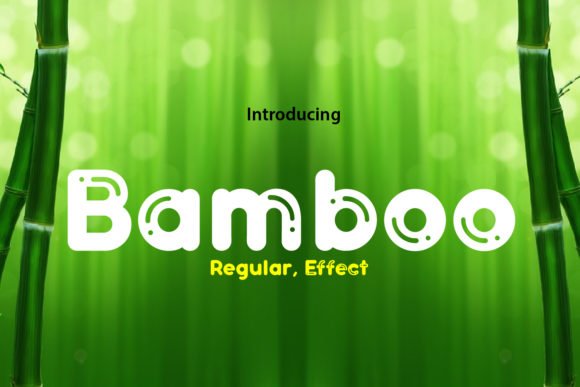
You know that moment when a single element brings your entire design together? For many designers, it’s the perfect font that makes all the difference. And today, we’re excited to introduce you to the Bamboo Font – a bold and simple sans serif font that’s sure to elevate your next project.
Whether you’re working on a logo, brochure, or website, the Bamboo Font is the perfect addition to your creative arsenal. Its clean lines and modern aesthetic make it incredibly versatile, allowing you to match it to a wide range of projects and styles. As a designer, you know how valuable it is to have a reliable font that can be counted on to deliver results.
Bamboo Font Key Features
- Unique Characteristics: Bamboo Font features a unique, hand-drawn design with a natural and earthy feel, making it perfect for creating a warm and inviting atmosphere in designs.
- Character Set: The font includes a comprehensive set of characters, including uppercase and lowercase letters, numbers, punctuation marks, and special characters, making it suitable for various languages and applications.
- Font Weight and Style: Bamboo Font is available in a single weight and style, providing a consistent look and feel across all applications.
Bamboo Font Review
Overall, I think the Bamboo Font is a nice addition to any design project, but it has some limitations that might affect its usability. Here are my thoughts:
- ✨ Unique aesthetic: The Bamboo Font has a distinctive, natural look that can add a touch of warmth to digital designs.
- ✨ Versatile: It can be used for a wide range of projects, from logos and branding to body text and headings.
- ✨ Easy to read: The font is clear and legible, making it suitable for both print and digital applications.
- ⚠️ Limited language support: The Bamboo Font might not be the best choice for projects that require a wide range of languages, as it may not have the necessary characters or glyphs.
- ⚠️ Not ideal for small sizes: The font can become blurry or difficult to read when used at small sizes, which may limit its use in certain design contexts.
Overall, the Bamboo Font is a nice option for designers who want to add a natural, earthy feel to their projects. However, its limitations should be carefully considered before making a final decision.
For optimal results, use the Bamboo Font in designs that require a natural, earthy feel, such as:
- Outdoor and adventure-themed designs
- Wellness and yoga-inspired graphics
Remember to experiment with different font sizes, colors, and alignments to achieve the desired look.